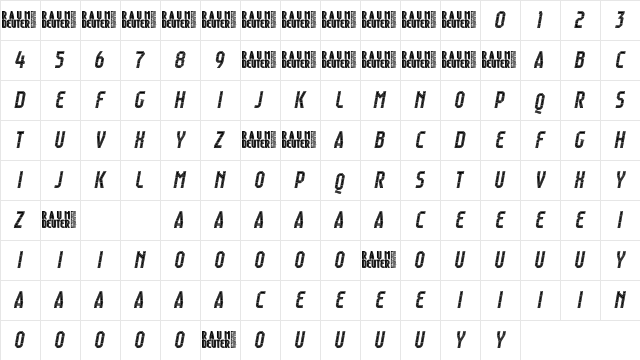
Raumdeuter Style 5 Italic
Foundry: Trequartista Studio
Designer: Trequartista Studio
Complete Raumdeuter Style 5 Italic glyph index. Displaying only characters natively supported by Raumdeuter Style 5 Italic font.
Design Context for Raumdeuter
Raumdeuter is a composed and adaptable typeface that performs quietly and consistently across a wide range of design contexts. The slanted form adds forward momentum and visual energy.
Pro Tip: Use Raumdeuter for emphasis, pull quotes, and subheadings where its slanted energy can add rhythm to the layout.